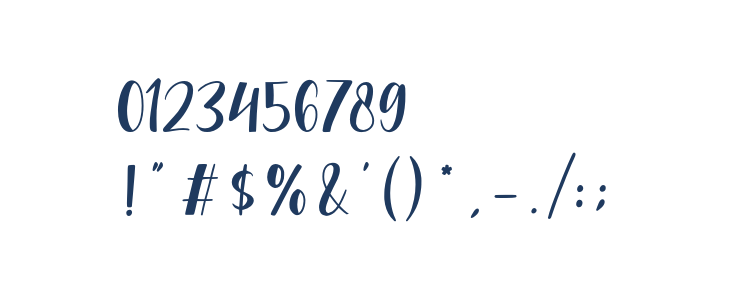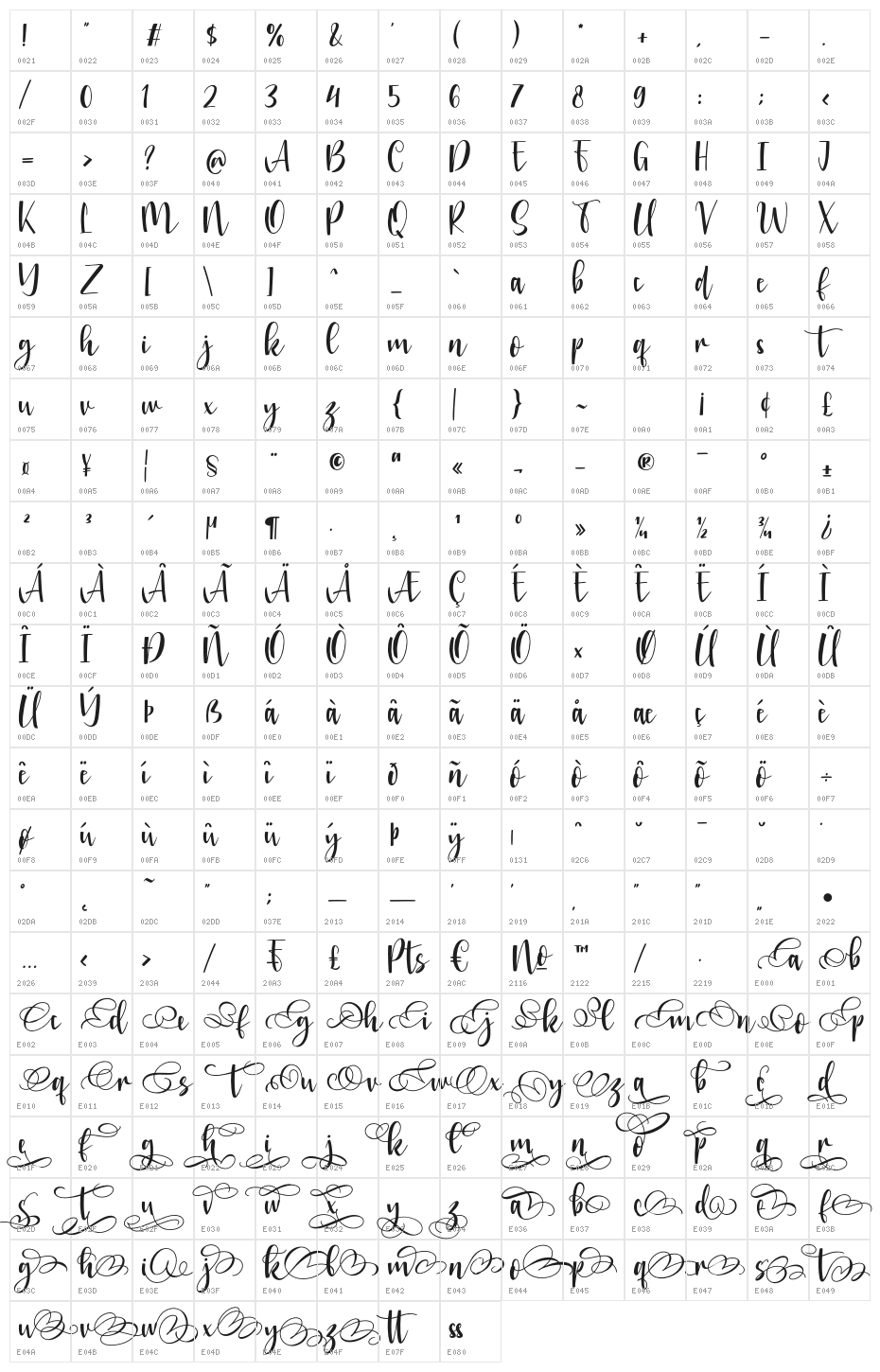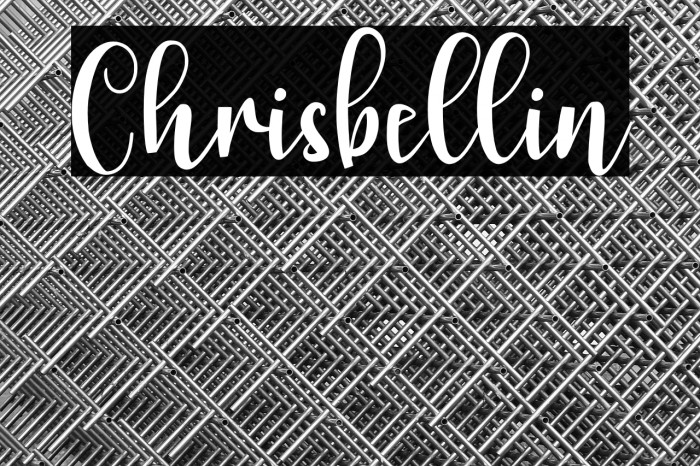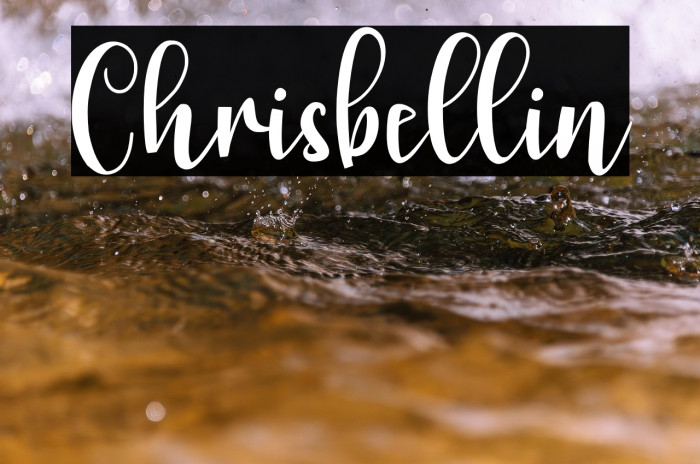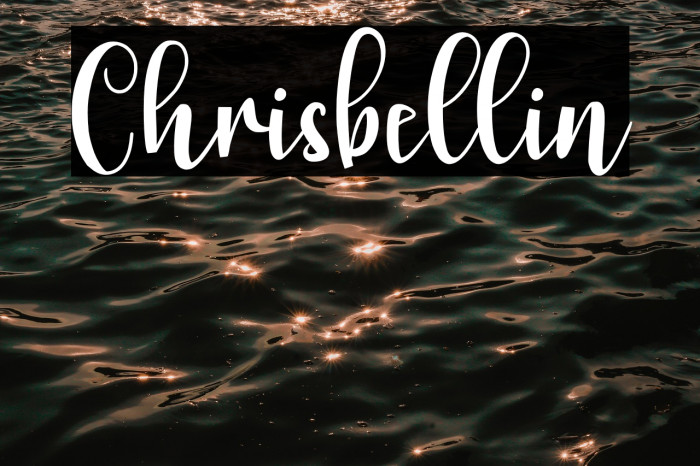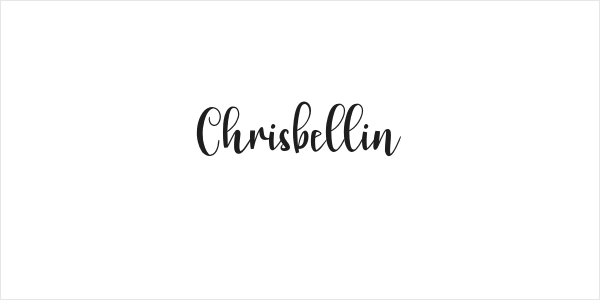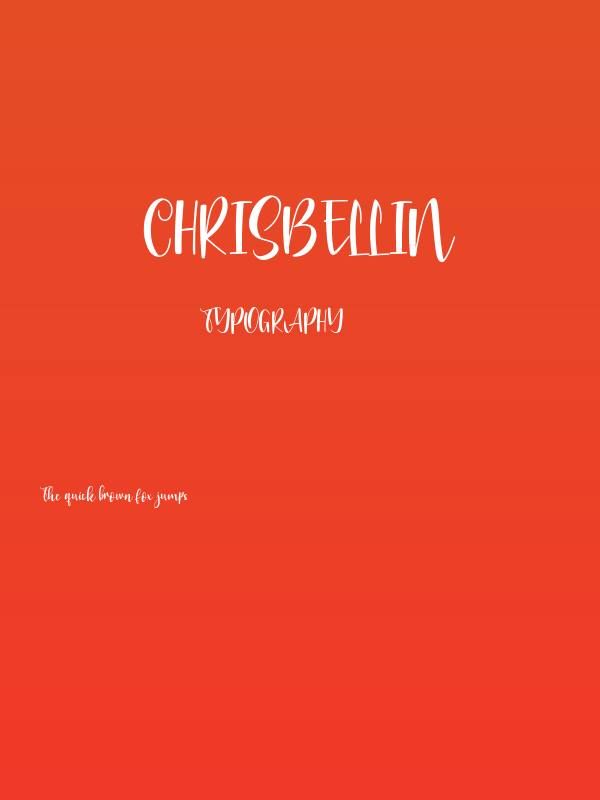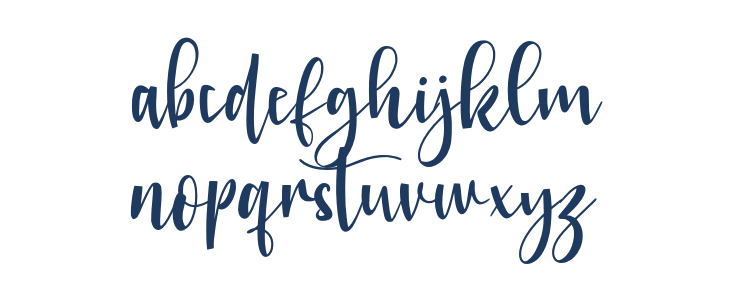
Chrisbellin Font
Chrisbellin Description
This font features a lively and expressive handwritten style that combines elegance with a touch of playfulness. The uppercase letters are bold and sweeping, with dramatic flourishes that add a sense of movement. The lowercase letters maintain a consistent flow, with some characters featuring unique loops and swashes that enhance the font's dynamic appearance. Numbers are equally stylish, maintaining the same energetic curves. The special characters are well-integrated, ensuring versatility across various design needs. This font is perfect for projects that require a personal and artistic touch, such as invitations, greeting cards, and branding materials.